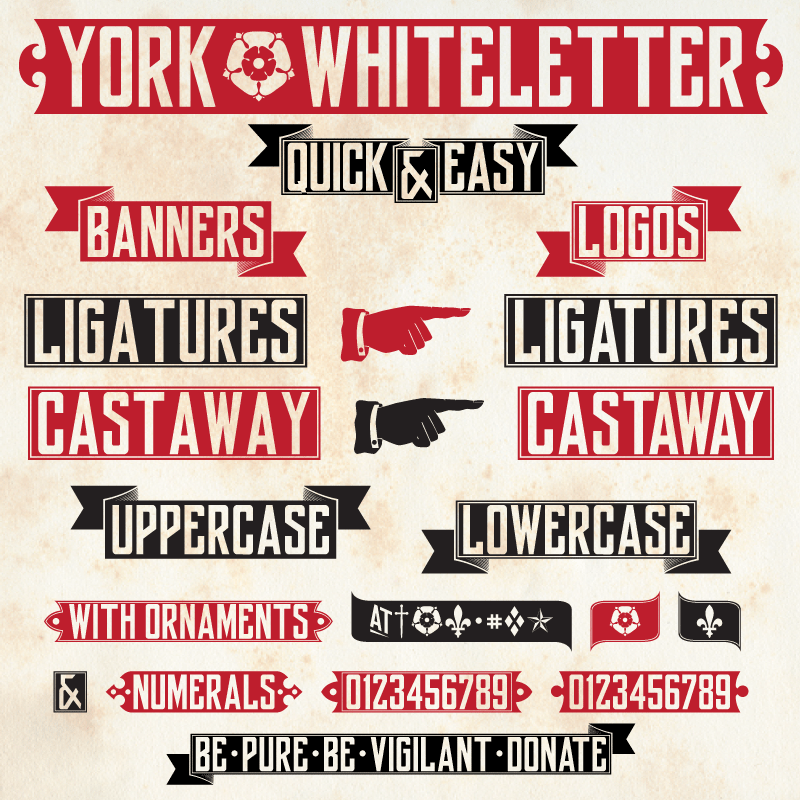
York Whiteletter is designed for making quick and easy banners and logos. Inspired by a Delittle design called ‘Eboracum №3 Improved White Letter Type’ and late 18th century woodtype. York Whiteletter can be used monospaced, but I decided to include ligatures to improve the fit of common kern pairs. Numerous ends and ornaments are included. Enable Ligatures and use the Glyphs Palette or Character Map to add end pieces and ornaments (see your apps/OS documentation on how to insert ‘special characters’ and enable ligatures in a font). Glyph maps included in the zip file showing both glyph image and Unicode. York Whiteletter is served free for personal use and ‘as is’ . If you like York Whiteletter, please feel free to make a ‘domestic brew’ sized donation to the ‘buy the author a beer fund’ using the donate button. For commercial use, should you find one for it, a donation would be good manners! Enjoy! Note: If you come across a glyph combination that you think would benefit from adding a ligature, post a comment or contact me through the PM system and I’ll add it to ‘to do list’ the next update. Pil |